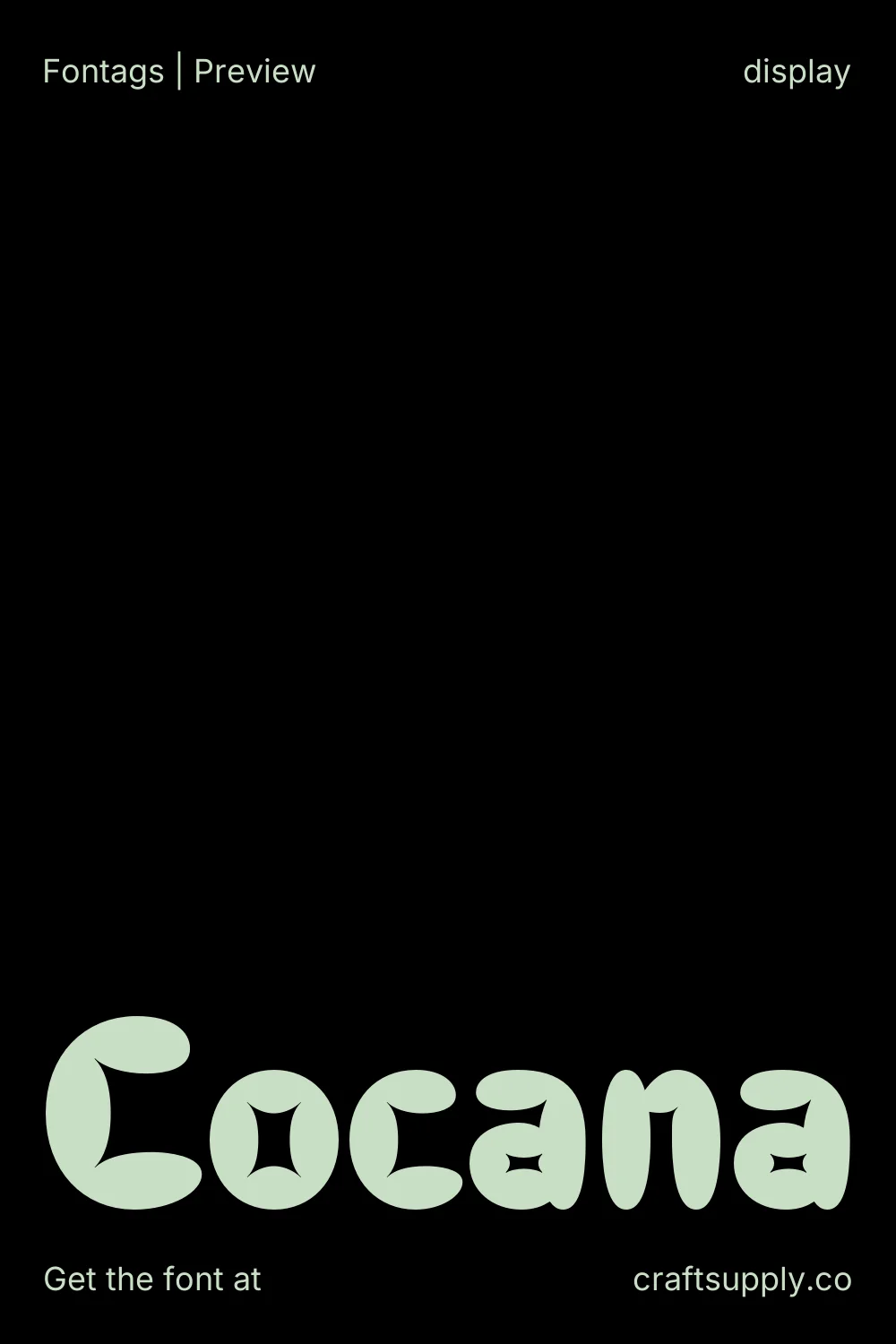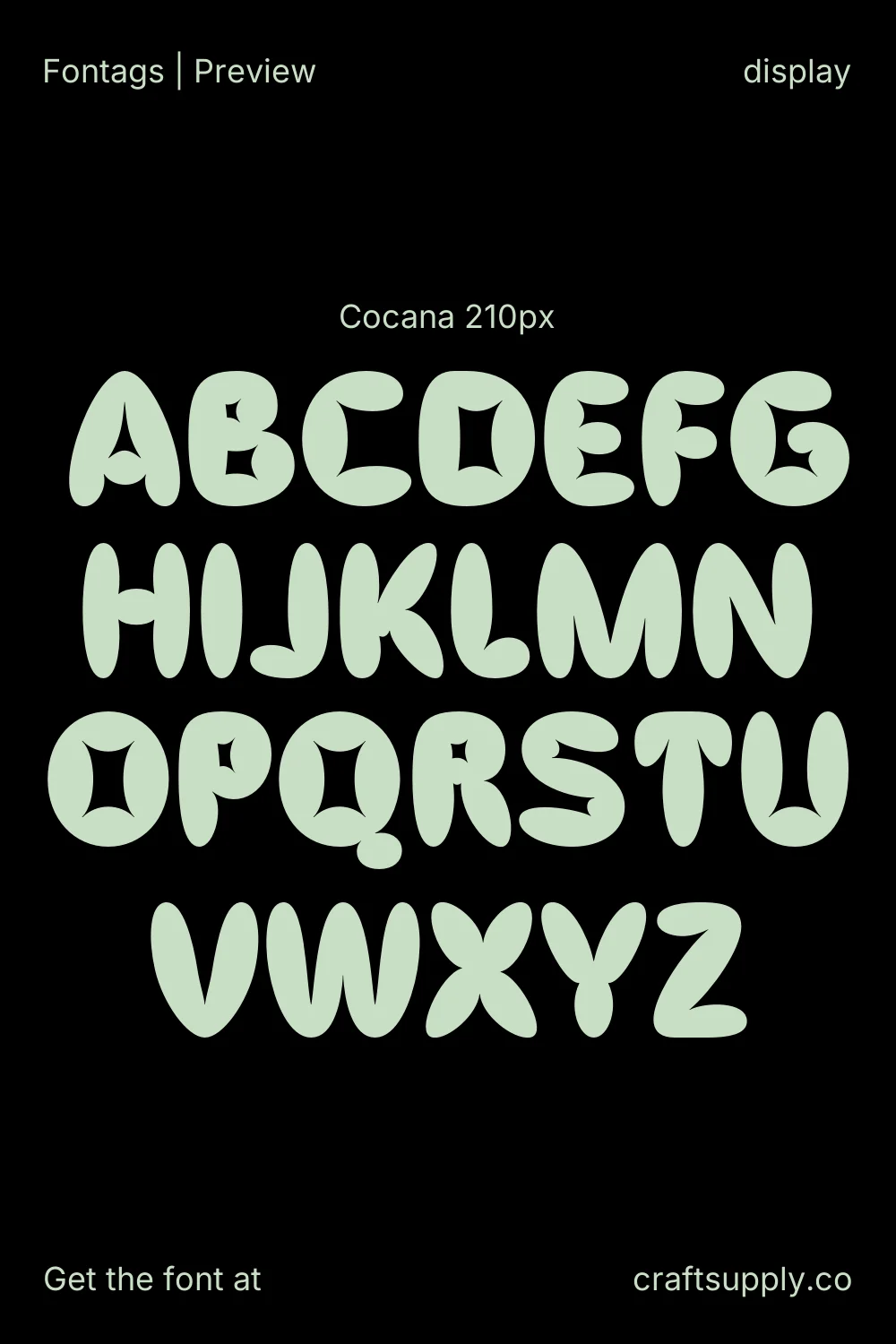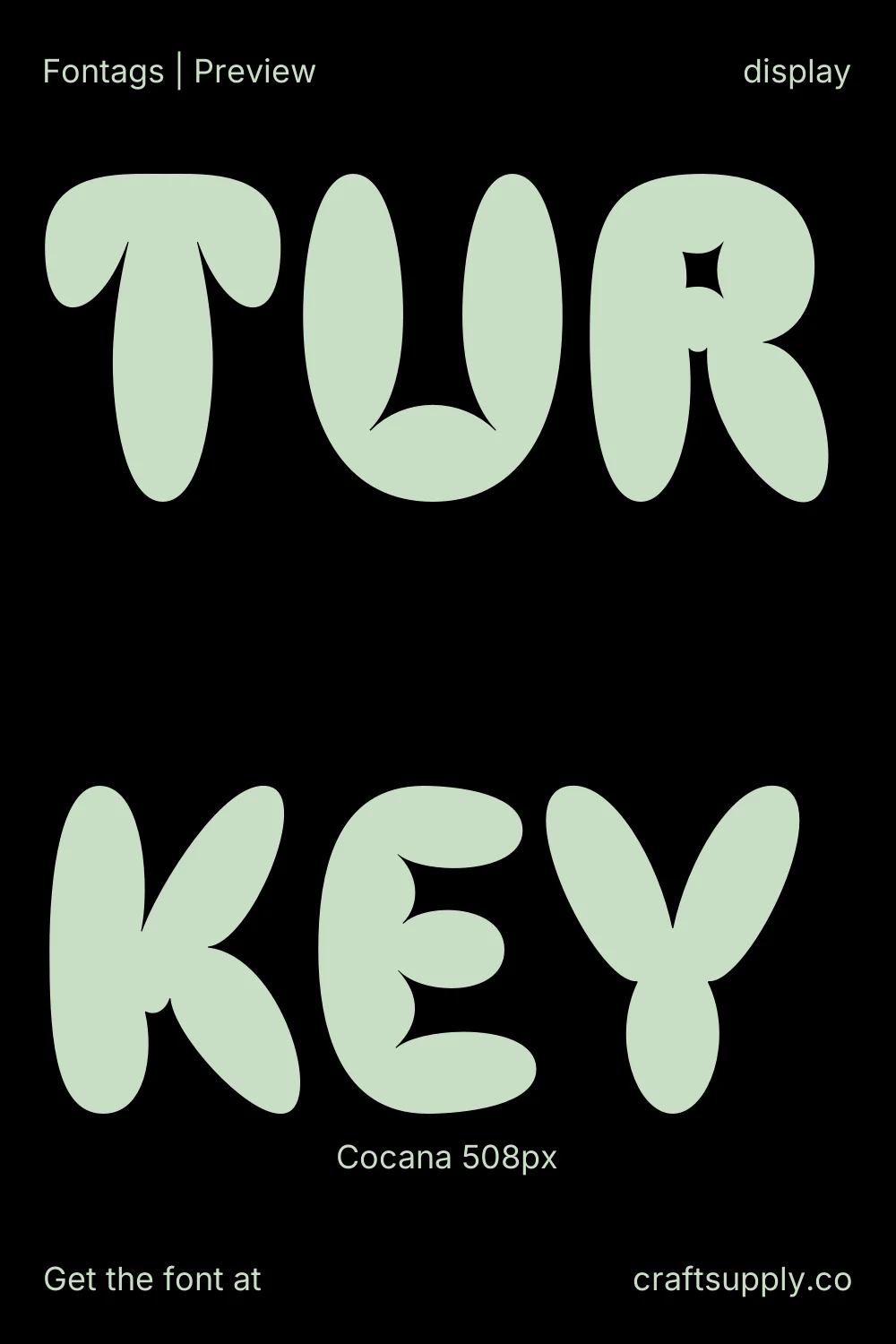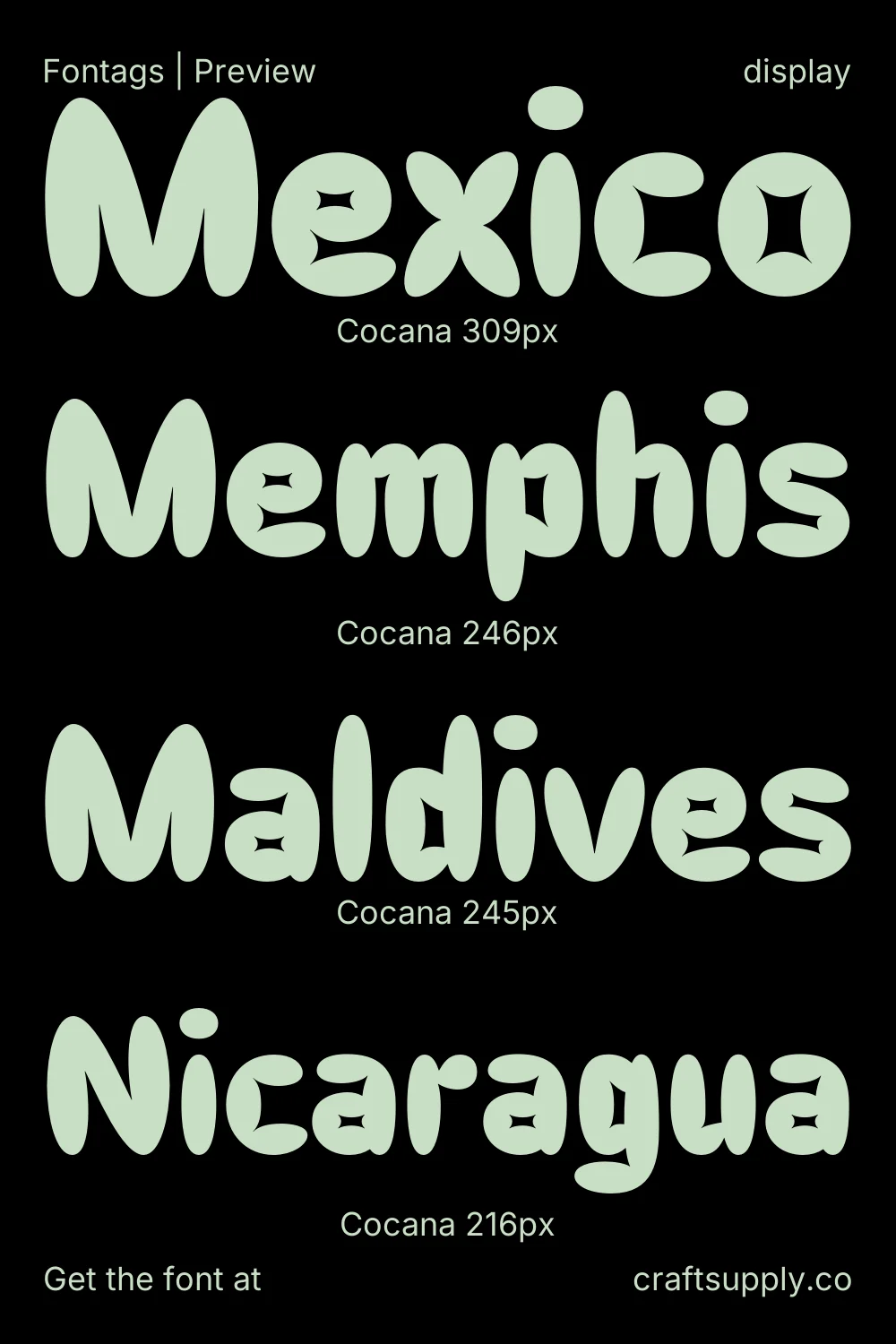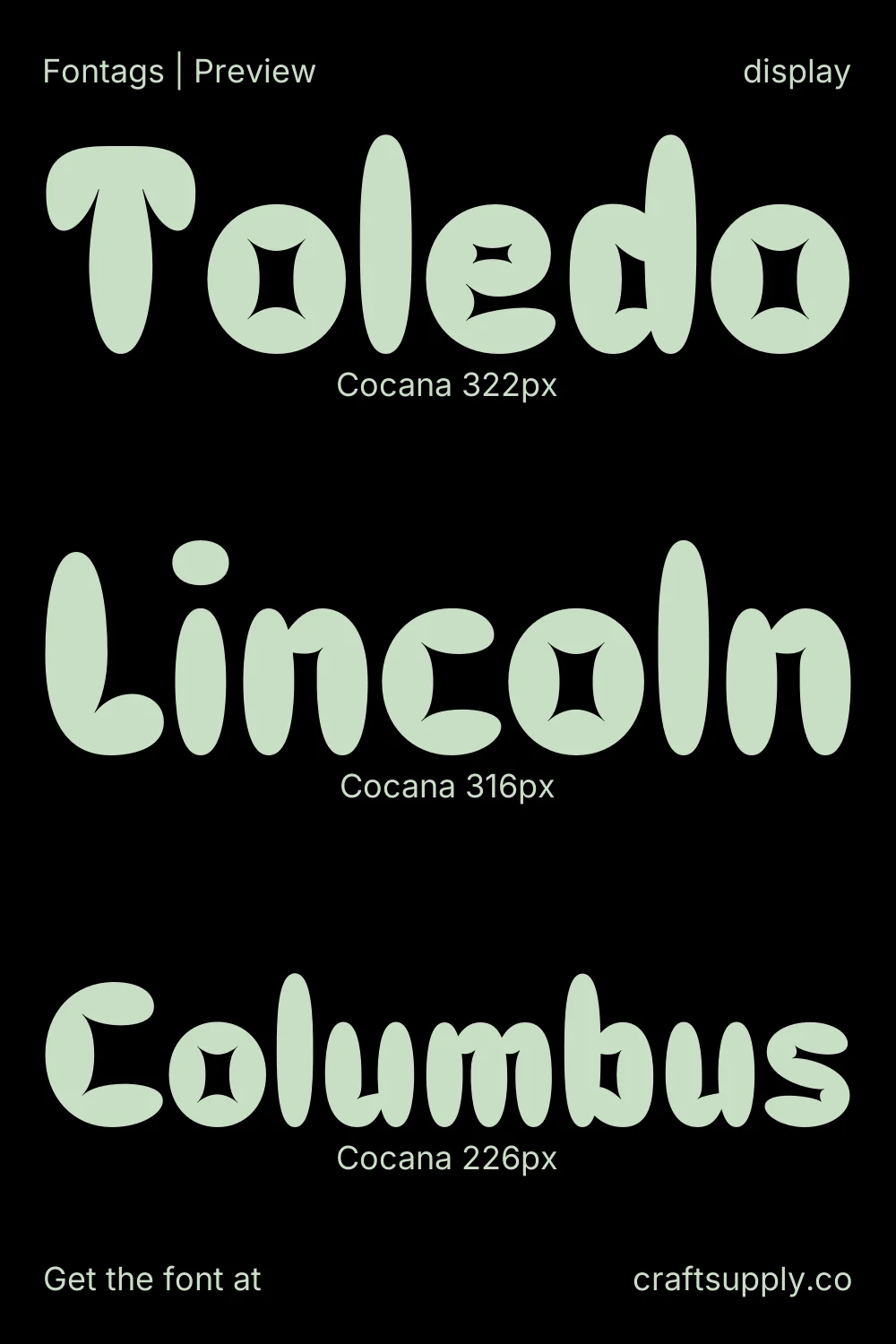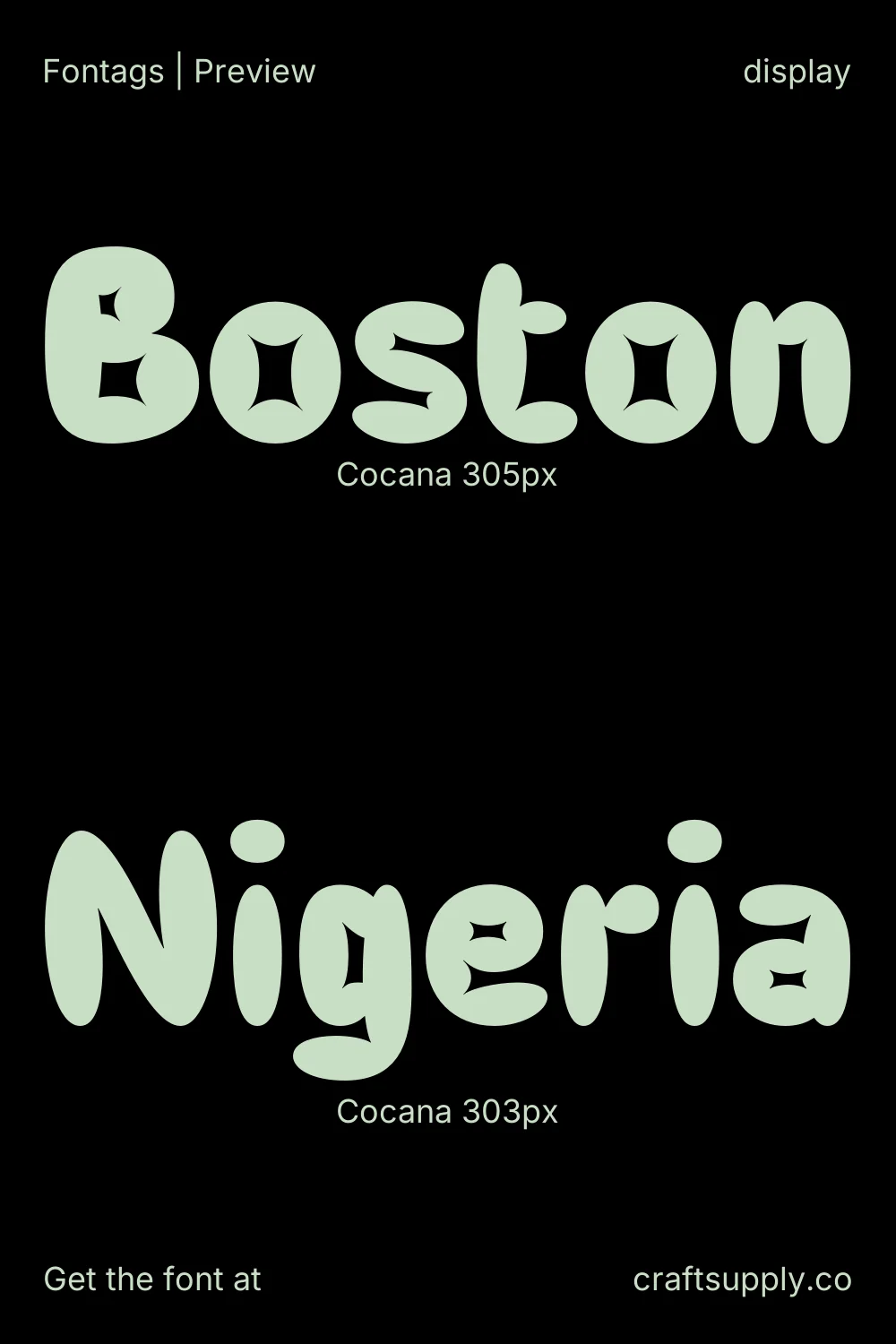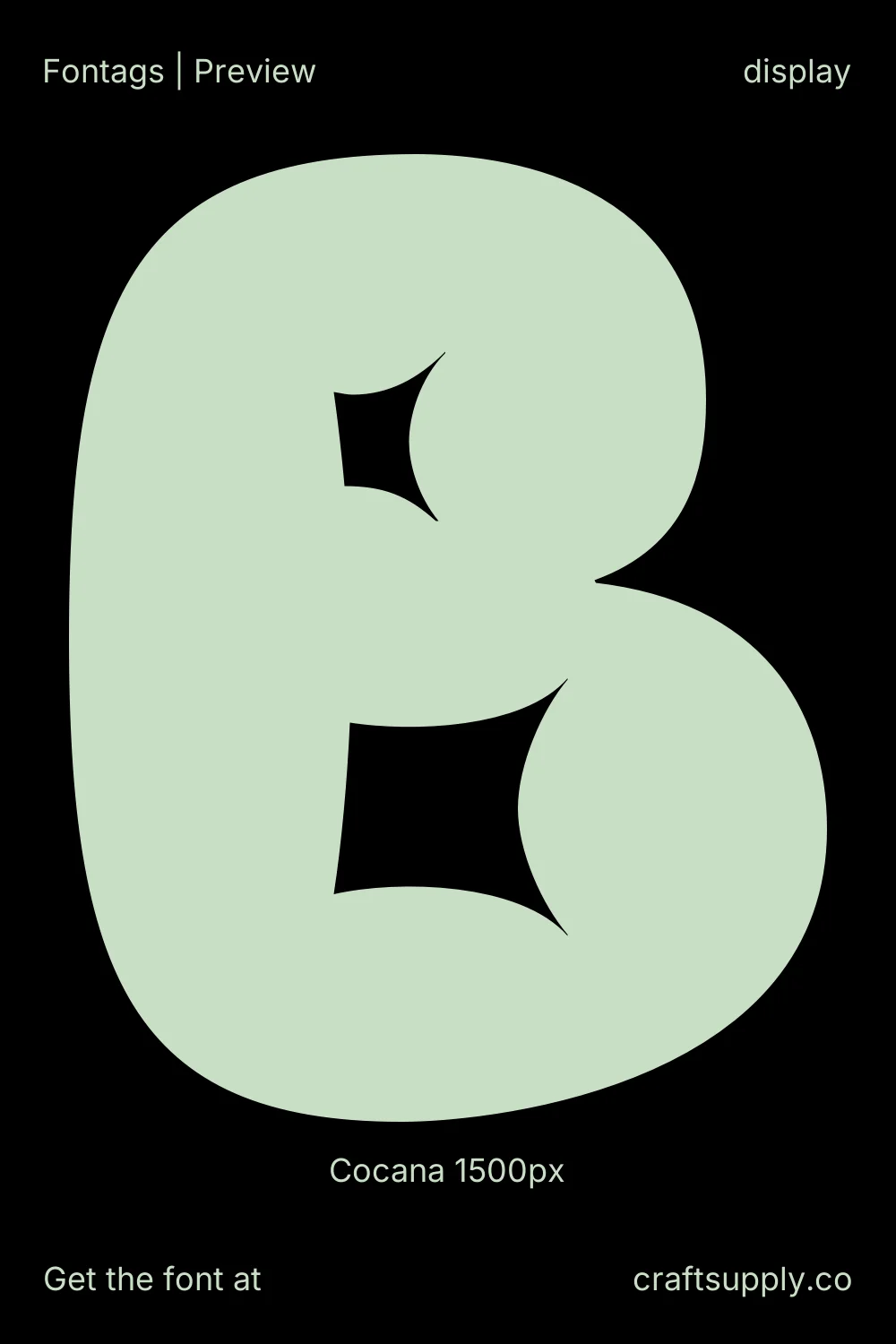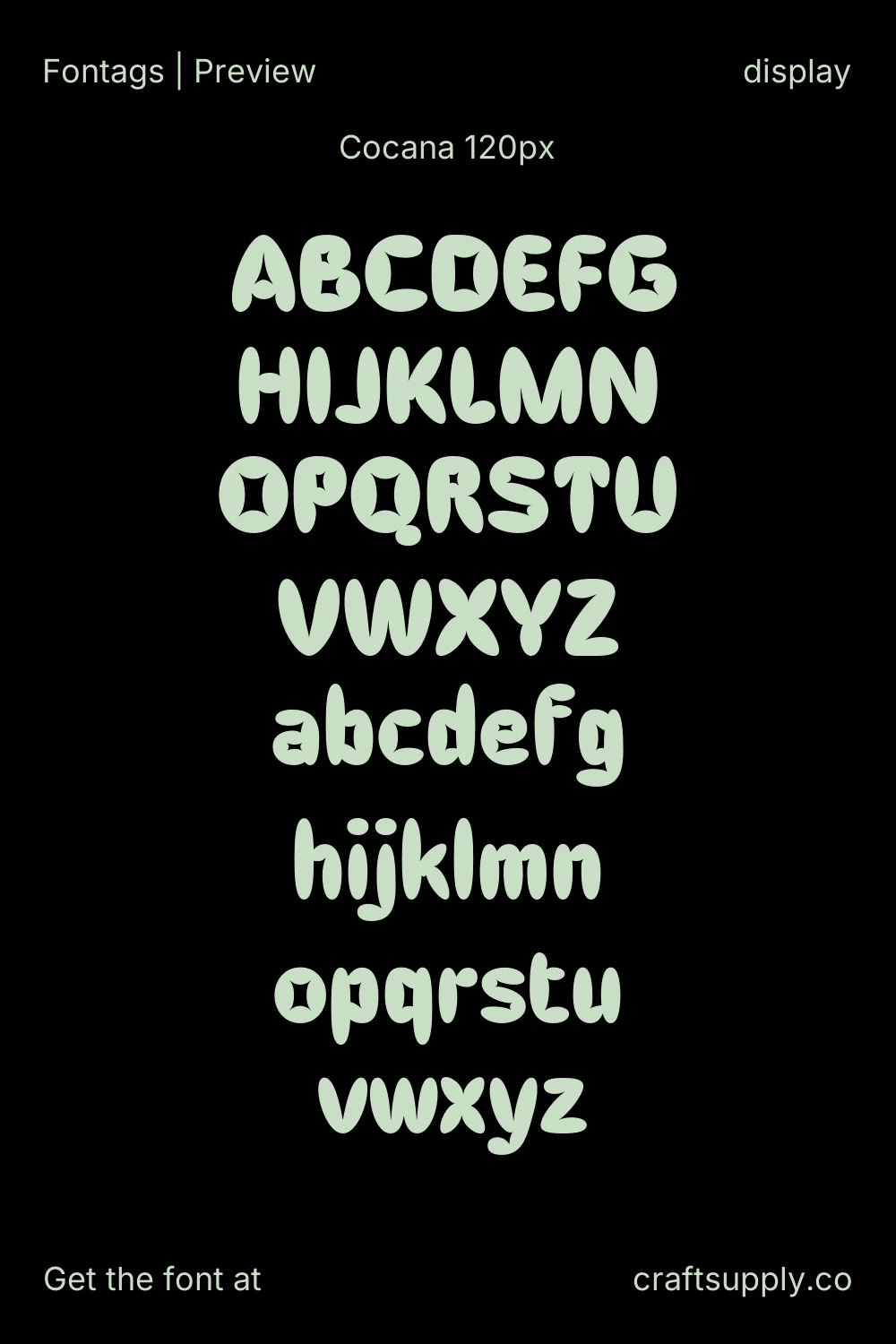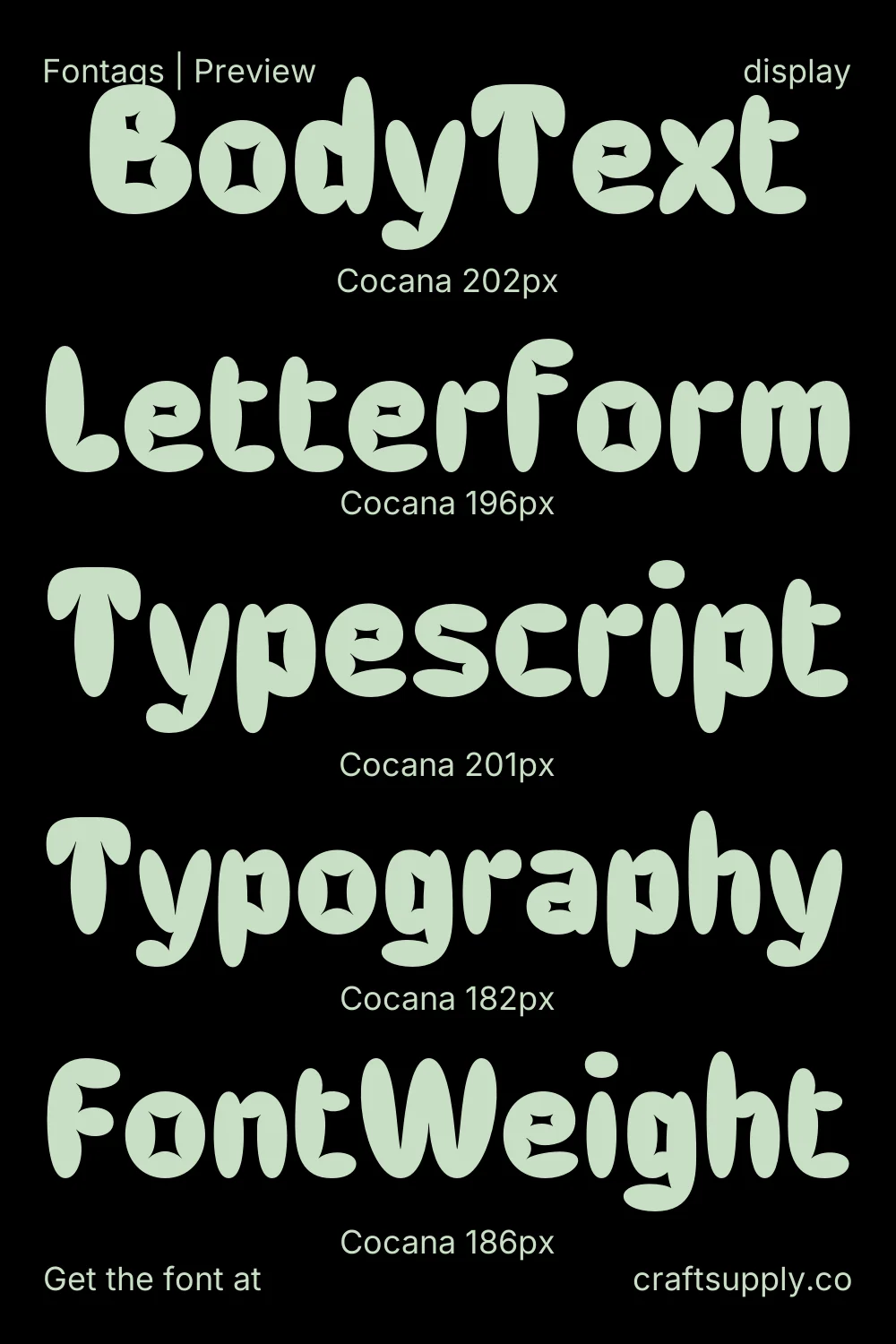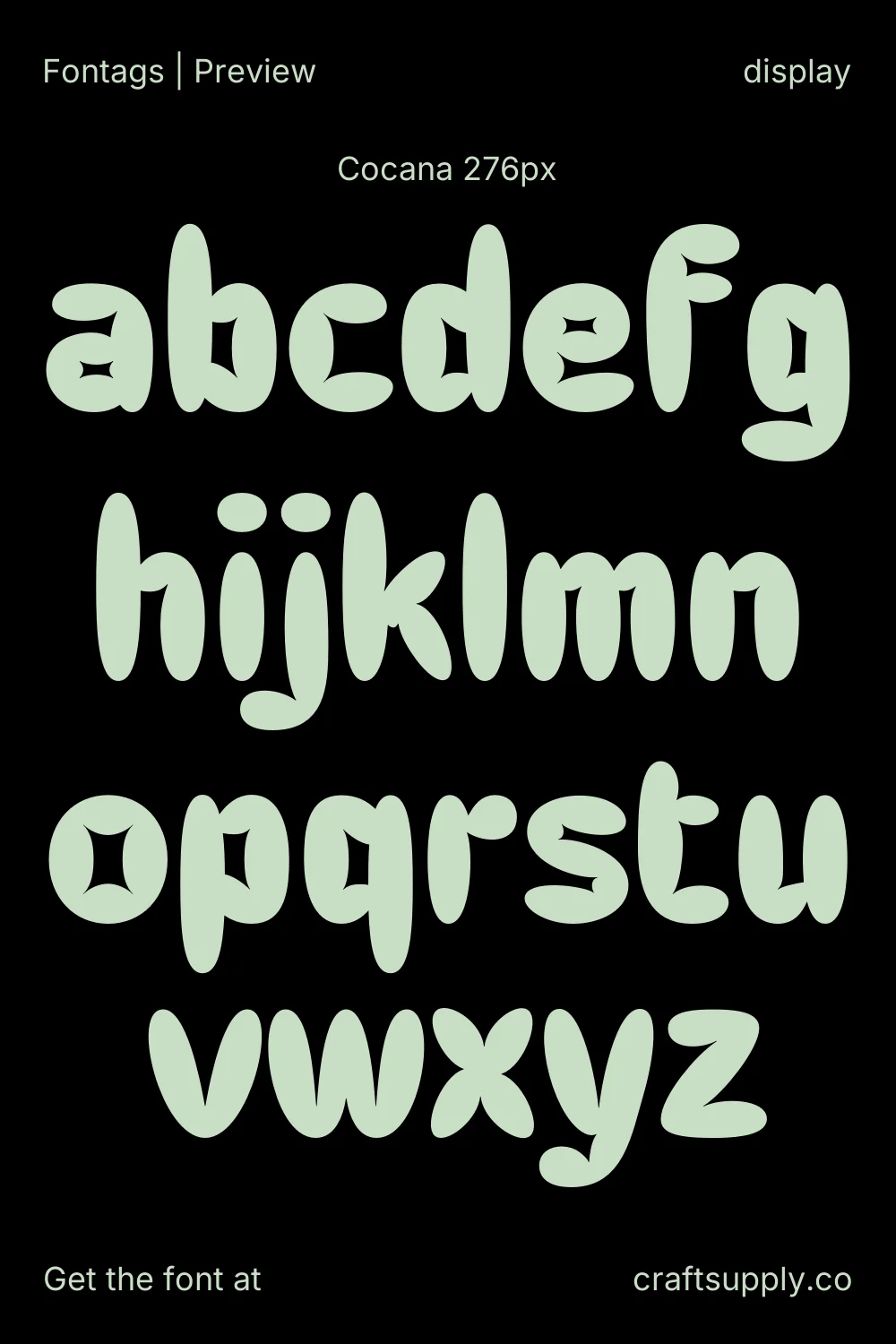
Cocana
Cocana is a playful bubble font with rounded, bulbous letterforms that exude a cheerful and whimsical personality. Perfect for invitations, posters, and any project seeking joyful, youthful energy. The typeface includes Regular and Italic styles with multilingual support.